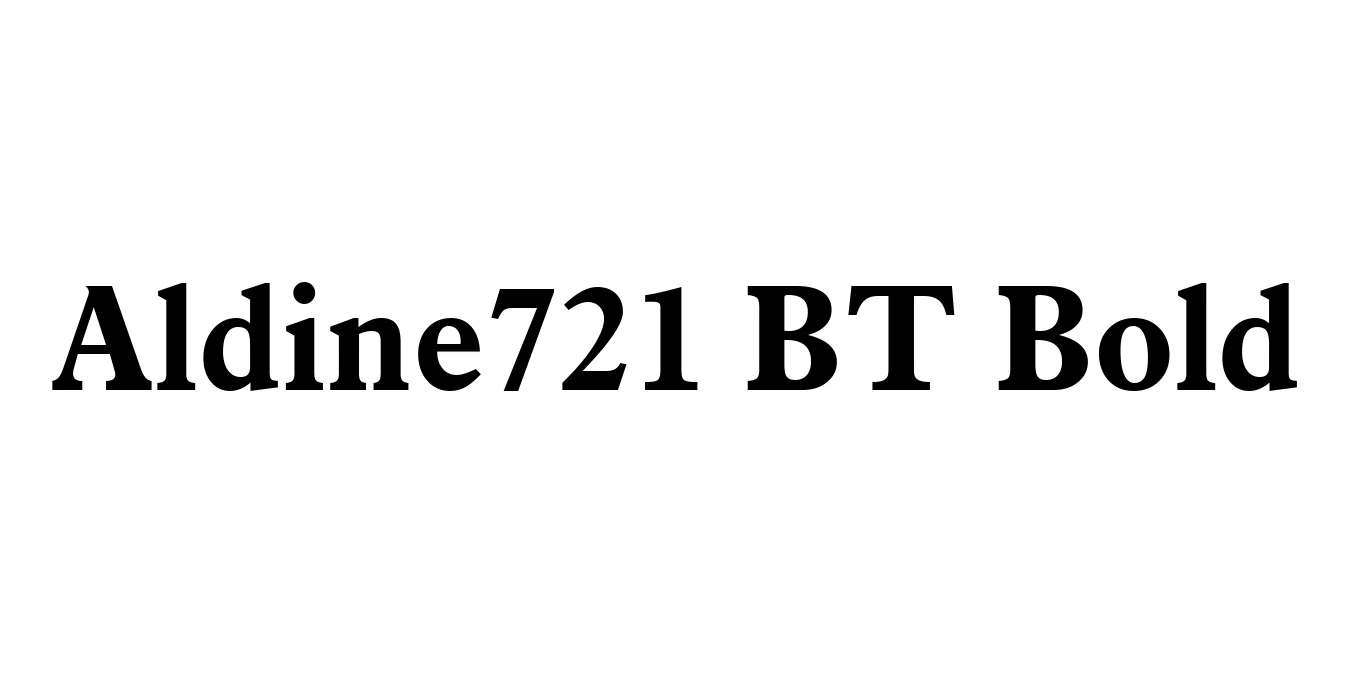
Aldine721 BT Bold
Designed by Bitstream (Frank Hinman Pierpont)
| Similar Fonts | Plantin, Times New Roman, Galaxie Cassiopeia, ITC Charter |
Aldine 721 BT Bold is a classic serif typeface released by Bitstream, based on the historical Plantin design. Originally inspired by the 16th-century work of Robert Granjon, this font was digitized to retain its sturdy, reliable structure. It features a large x-height and moderate contrast, which makes it exceptionally legible in both print and digital mediums. The bold weight emphasizes the font's robust nature, offering a dense but clear appearance that commands attention without losing the elegance of its Renaissance roots.
Throughout history, the Aldine 721 family has been recognized as a primary influence for the creation of Times New Roman. Its design was specifically engineered to hold up under heavy ink spread in early printing processes, leading to its reputation as a high-performance typeface for professional publishing. Today, the Bold variant is frequently used by designers who require a traditional serif that conveys authority, stability, and timeless sophistication in professional layouts.
Aldine721 BT Bold Best Uses
Perfect for magazines, newspapers, and long-form journals due to its high readability.
Ideal for chapter headings and emphasis in literature and textbooks.
Conveys a sense of established authority and professional reliability.
Strong enough to stand out in brochures and printed promotional materials.